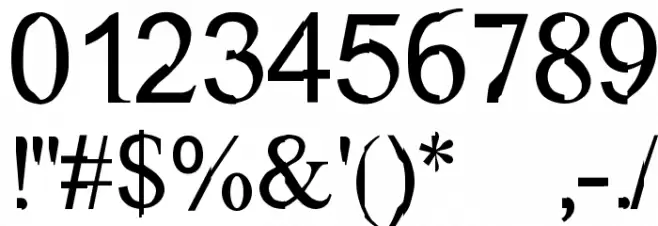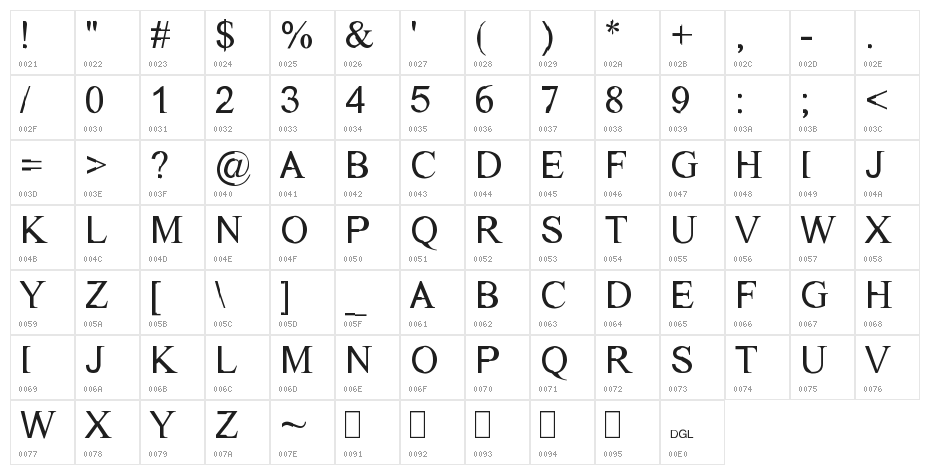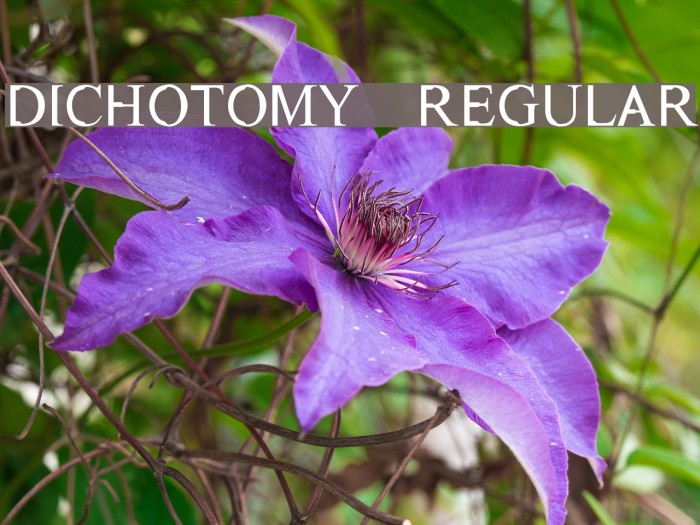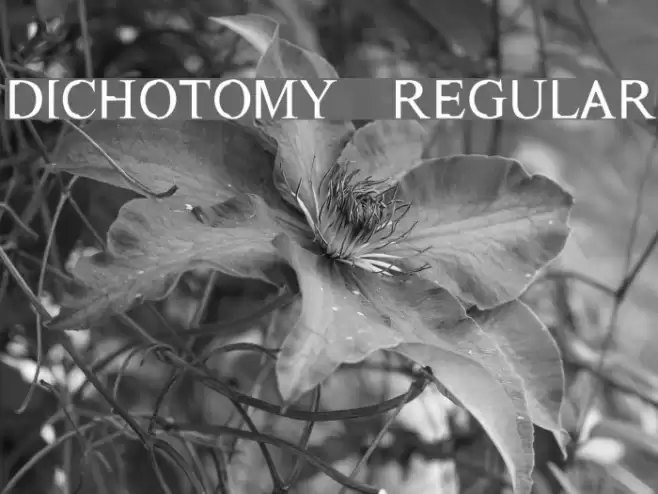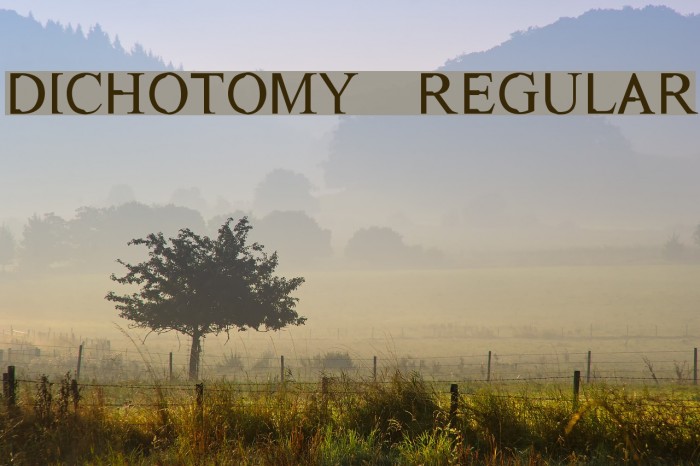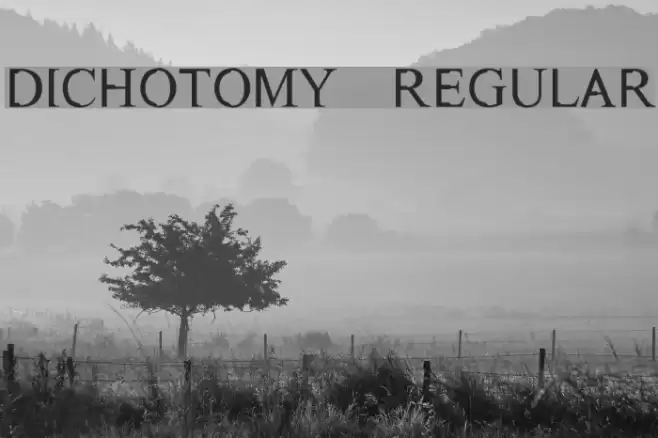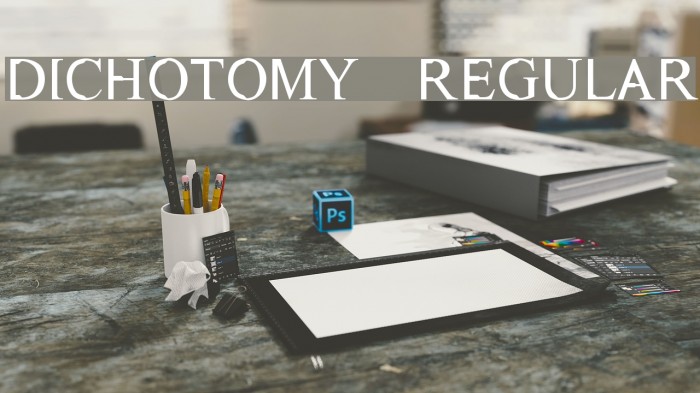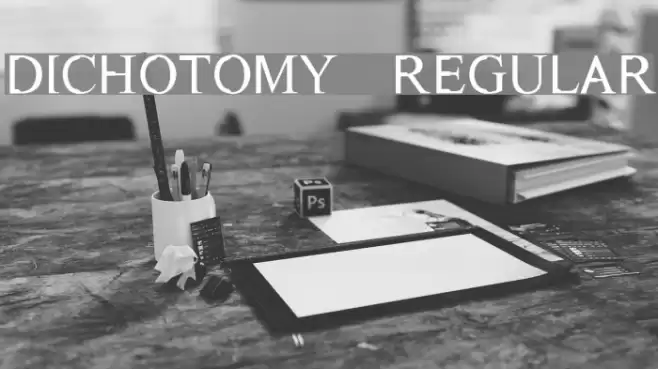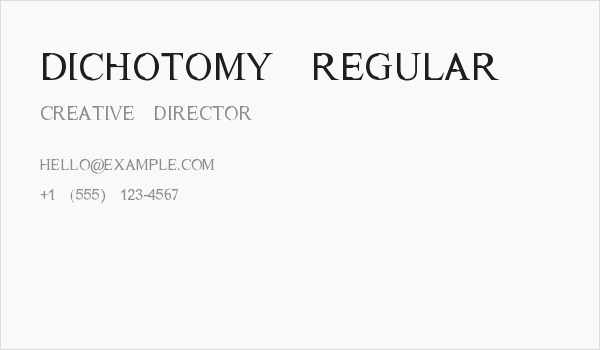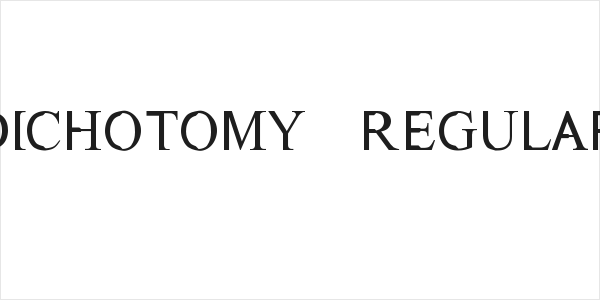
Dichotomy Regular Font
Dichotomy Regular Description
This font exhibits a unique blend of modern and classic elements, characterized by its sharp, angular serifs and clean lines. The uppercase letters are bold and commanding, while the lowercase letters maintain a consistent style that complements the uppercase. The numerals are distinct and easily readable, with a slight flair that adds personality. Special characters are well-integrated, maintaining the font's overall aesthetic. The font's design is versatile, suitable for both digital and print media, offering a sophisticated yet approachable look.
| Proposed Projects | Ideal for branding, editorial design, and high-end product packaging. |